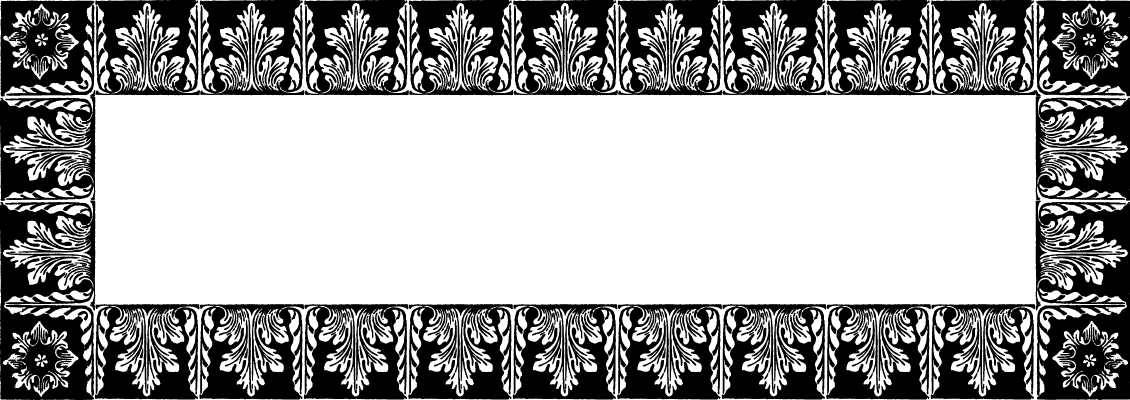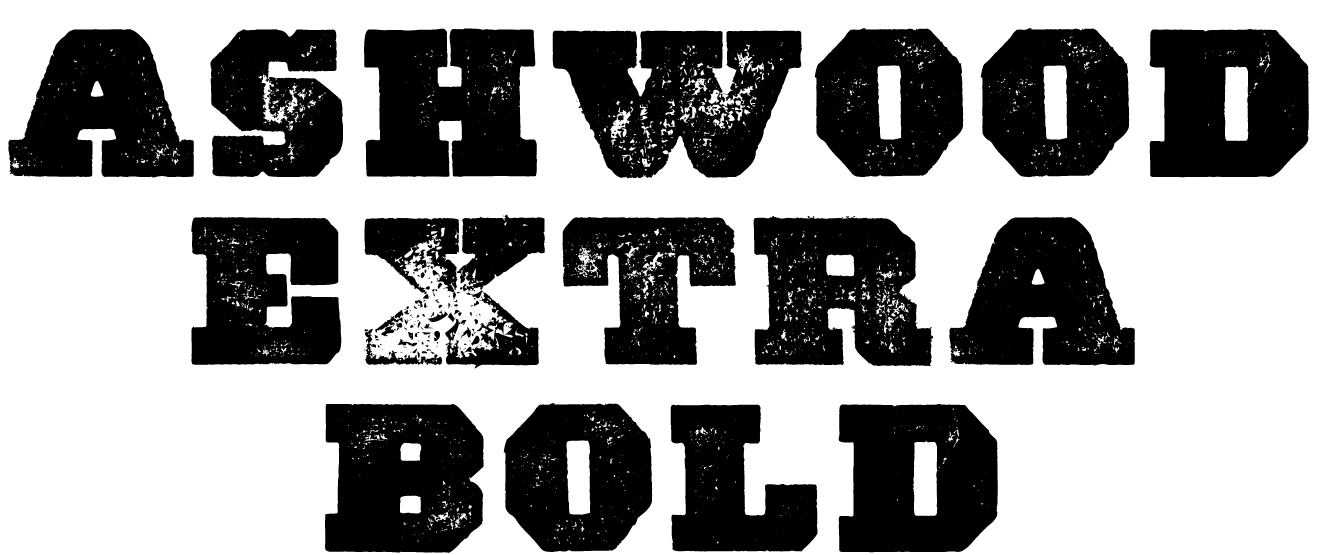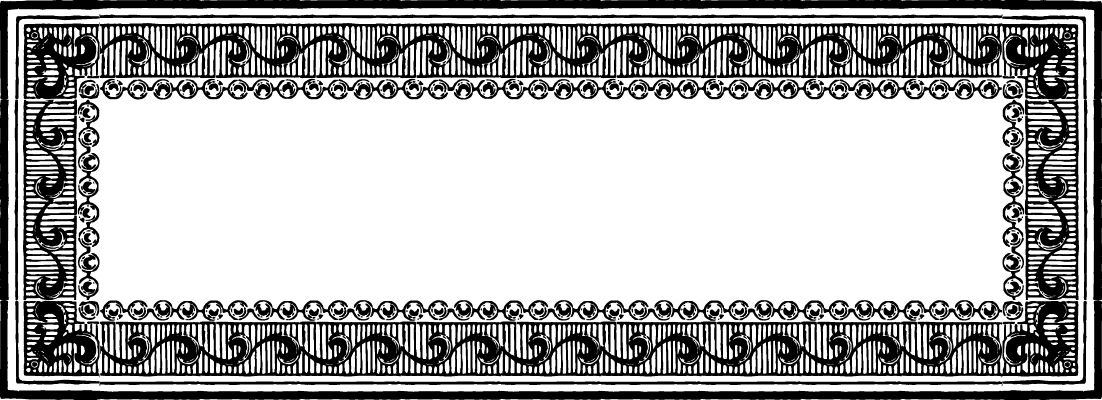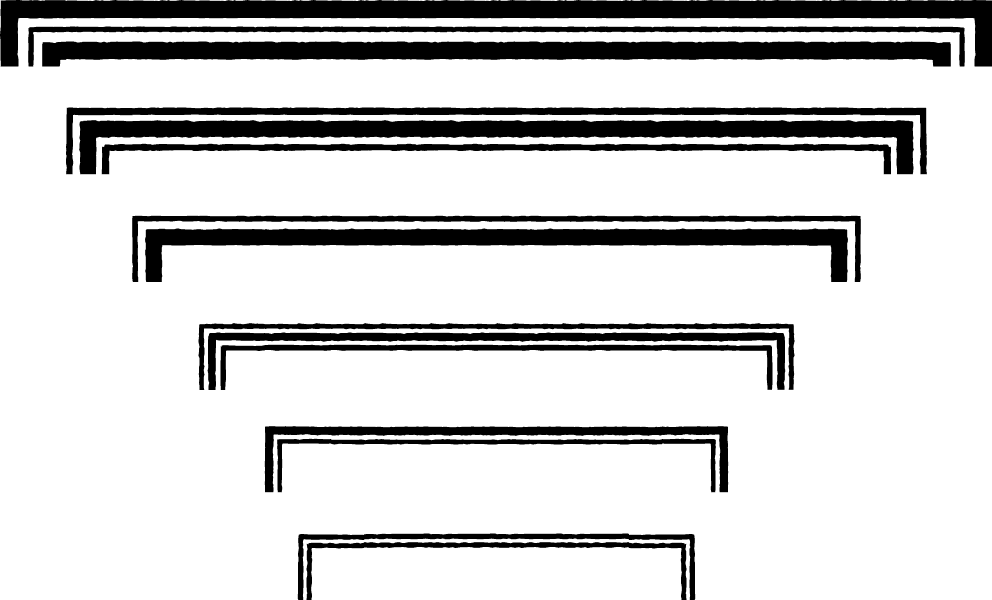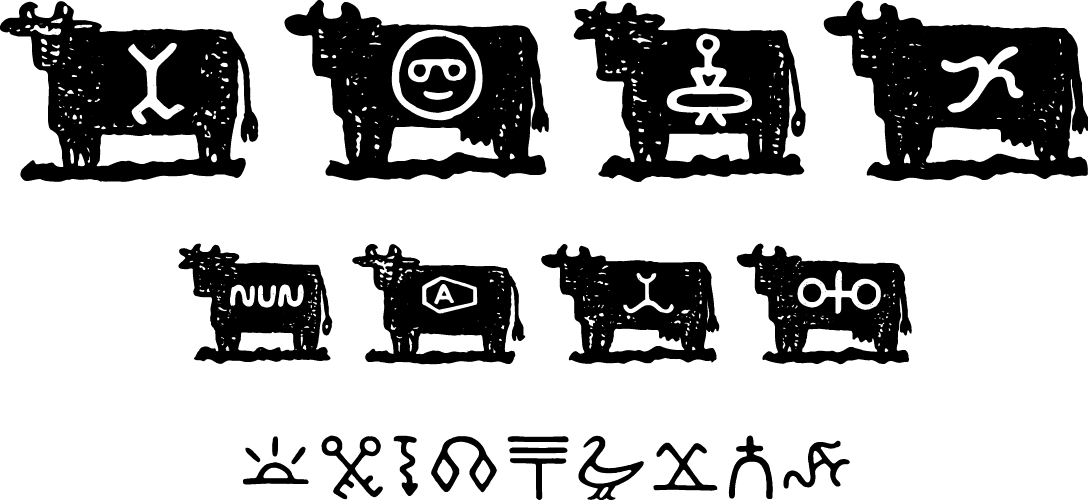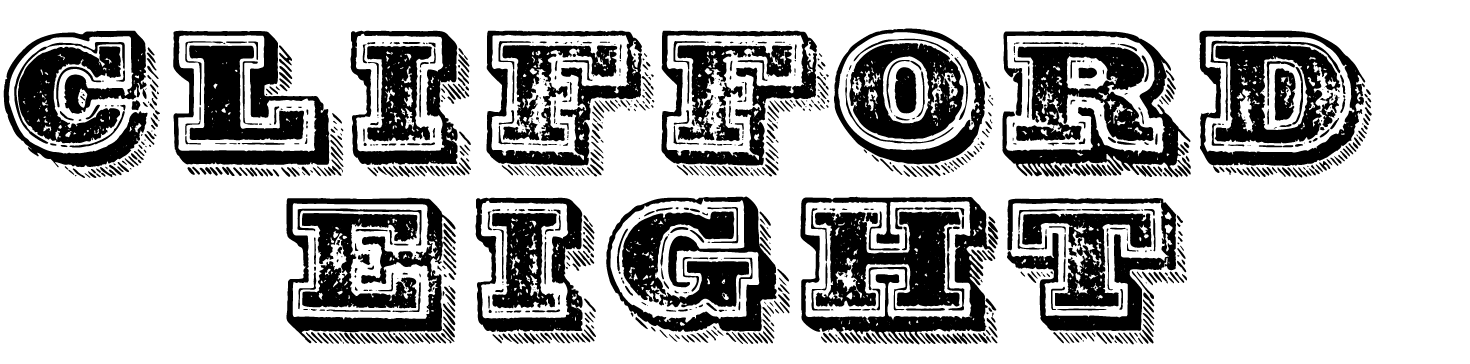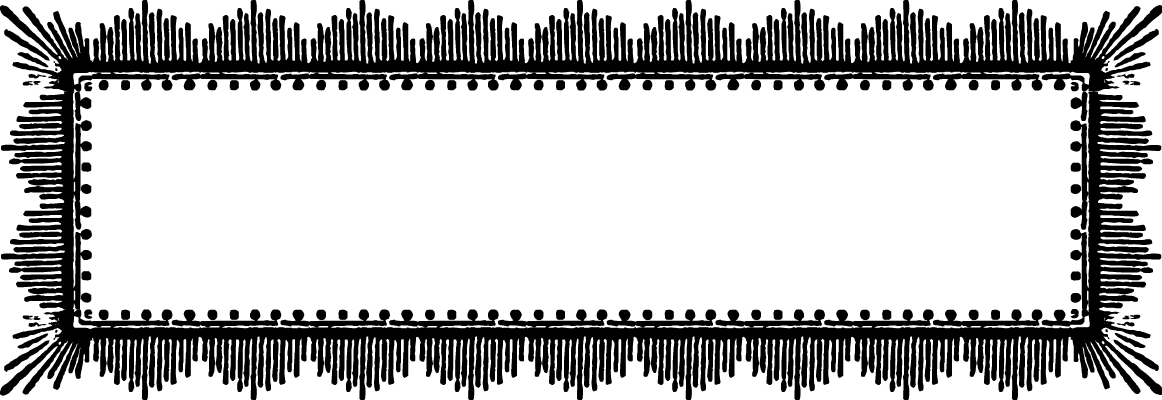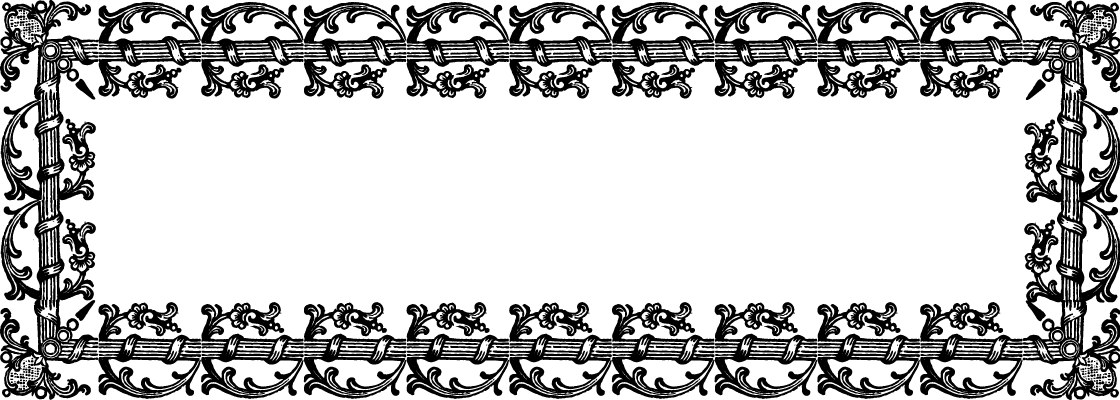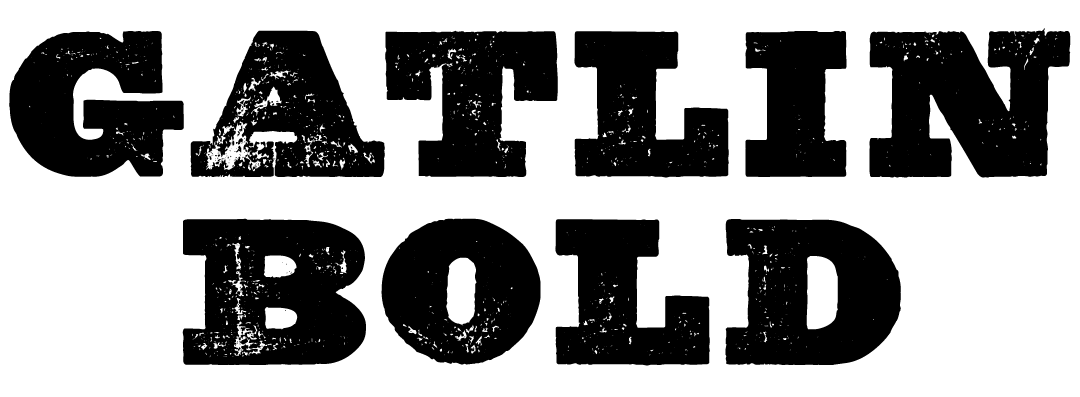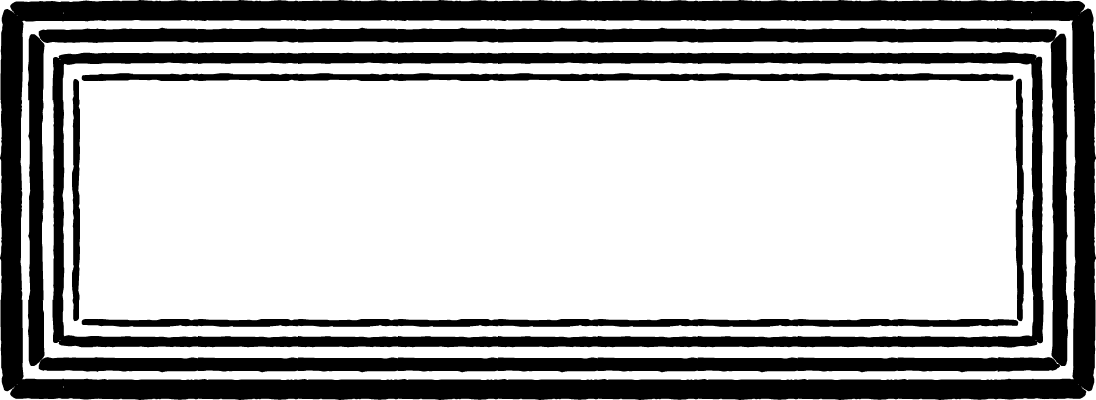
The Wild West Press
The Wild West Press design kit has everything you need to make authentic wanted posters, playbills, gambling posters, product labels and much more: distressed, old-fashioned fonts that are perfect for projects calling for a grungy, dusty, old west look.
The display fonts are mainly slab-serif, "Tuscan" styles, ranging from rustic cowboy fonts to ornate 19th century wood types. They are well suited for signage and headlines.
Not looking for the typical "wanted poster" or circus and carnival advertisement look? Use our old west fonts sparingly, even just single letters, to add extra oomph to your projects.
Our western fonts are taken from original sources and retain all the wear and tear of the originals. Combine them with our western bullets and cattle brand fonts for added impact, then lasso your text with one of the included decorative borders to get a compelling, authentic "wild west" style composition!
The set includes the following wild west fonts:
• 24 Original Display Typefaces
• 10 Original Text Typefaces
• A 19th century handwriting font (Dead Man's Hand WF)
• 9 Border Fonts
• 1 Signature font (Heroes and Villains WF)
• 2 Symbol Fonts (Western Bullets WF and Cattle Brands WF)
• Over 300 clip-art images - Patriotic Symbols, Page Ornaments, Animals, People & Faces, Transportation and Scenery
The condensed version of Ashwood
Ashwood Condensed WF   Punctuation: no  Uppercase: yes  Lowercase: no  Numerals: no
A tremendously black face - great for headlines
Ashwood Extra Bold WF   Punctuation: no  Uppercase: yes  Lowercase: no  Numerals: no
A rough, bold Sans-Serif Display face.
Asphaltum WF   Punctuation: no  Uppercase: yes  Lowercase: no  Numerals: no
A popular, ornate display face
Aubrey Landing WF   Punctuation: yes  Uppercase: yes  Lowercase: no  Numerals: no
A classic among Western Display faces.
Bear Gulch WF   Punctuation: yes  Uppercase: yes  Lowercase: yes  Numerals: yes
The Bullion family is one of the most popular 19th century fonts. You will get a lot of mileage from these types.
Bullion WF   Punctuation: yes  Uppercase: yes  Lowercase: yes  Numerals: yes
The Bullion family is one of the most popular 19th century fonts. You will get a lot of mileage from these types.
Bullion Extra Condensed WF   Punctuation: yes  Uppercase: yes  Lowercase: yes  Numerals: yes
The Bullion family is one of the most popular 19th century fonts. You will get a lot of mileage from these types.
Bullion Italic WF   Punctuation: yes  Uppercase: yes  Lowercase: yes  Numerals: yes
Shaded typefaces were always popular. Chalk Bluff is an example from the latter half of the 19th century. This one is particularly worn.
Chalk Bluff WF   Punctuation: yes  Uppercase: yes  Lowercase: yes  Numerals: yes
What a typeface! This font begs to be set at 3 feet or taller! Unfortunately, we have found no numerals for this superb shaded font.
Clifford Eight WF   Punctuation: yes  Uppercase: yes  Lowercase: yes  Numerals: no
an odd, spiky look sets this Display face apart. Definitely one of the stranger faces in the Tuscan style.
Cut and Shoot WF   Punctuation: no  Uppercase: yes  Lowercase: no  Numerals: yes
A very black typeface for strong displays at large point sizes.
Gatlin Bold WF   Punctuation: yes  Uppercase: yes  Lowercase: no  Numerals: no
Muleshoe is a face that goes well with its name - rough and tumble, worn and spiky. This would be a good font to use for outdoor signs.
Muleshoe WF   Punctuation: yes  Uppercase: yes  Lowercase: yes  Numerals: yes
A popular text face at the time, Ophir is light an airy and well suited for labels and advertisements.
Ophir WF   Punctuation: yes  Uppercase: yes  Lowercase: yes  Numerals: yes
This typeface is tough as nails. Too wide to be allowed in most printing projects, this font makes quite a statement. If you need impact, Rawhide WF can deliver it.
Rawhide WF   Punctuation: yes  Uppercase: yes  Lowercase: yes  Numerals: yes
A fabulous, shaded display face. Ornate, but not too ornate.
Round Mountain WF   Punctuation: yes  Uppercase: yes  Lowercase: no  Numerals: no
This font evokes images of showboats and gambling halls along the Mississipi and Missouri rivers of old. The name, inspired by Mark Twain, evokes the same.
Royal Nonesuch WF   Punctuation: yes  Uppercase: yes  Lowercase: no  Numerals: no
Whenever I look at this font I think of barbed wire across endless plains . . .
Sageland WF   Punctuation: yes  Uppercase: yes  Lowercase: no  Numerals: yes
A classic
Sawtooth WF   Punctuation: yes  Uppercase: yes  Lowercase: yes  Numerals: yes
Another very typical
Shelldrake WF   Punctuation: no  Uppercase: yes  Lowercase: no  Numerals: yes
A very bold, shaded, 3-dimensional face that lends itself to headlines or any other large-format application
Stockton WF   Punctuation: yes  Uppercase: yes  Lowercase: no  Numerals: yes
A very tall and narrow, sans-serif face that foreshadows some of the later gothic developments. Very eye-catching.
Thousandsticks WF   Punctuation: yes  Uppercase: yes  Lowercase: yes  Numerals: yes
A nicely shadowed face, very decorative, though not the most legible.
Thunder Mountain WF   Punctuation: yes  Uppercase: yes  Lowercase: yes  Numerals: yes
A sprawling display face that blurs the line between type and ornament. The legibility is fairly low, but what an impact!
Whitecross WF   Punctuation: yes  Uppercase: yes  Lowercase: no  Numerals: yes
A bold, rounded display face with strange spikes for serifs.
Wildwash WF   Punctuation: yes  Uppercase: yes  Lowercase: no  Numerals: yes
A legible text face in the
Faywood WF   Punctuation: yes  Uppercase: yes  Lowercase: yes  Numerals: yes
A legible text face in the
Faywood Extra Condensed WF   Punctuation: yes  Uppercase: yes  Lowercase: yes  Numerals: yes
A legible text face in the
Faywood Italic WF   Punctuation: yes  Uppercase: yes  Lowercase: yes  Numerals: yes
A text face in the
Jawbones Condensed WF   Punctuation: yes  Uppercase: yes  Lowercase: yes  Numerals: yes
A fairly white, rounded face. Good for announcements of any kind.
Langtry WF   Punctuation: yes  Uppercase: yes  Lowercase: yes  Numerals: yes
A formal face well suited for all text applications. Matchwood WF comes in roman, italic, bold and bold-italic cuts.
Matchwood WF   Punctuation: yes  Uppercase: yes  Lowercase: yes  Numerals: yes
A formal face well suited for all text applications. Matchwood WF comes in roman, italic, bold and bold-italic cuts.
Matchwood Bold WF   Punctuation: yes  Uppercase: yes  Lowercase: yes  Numerals: yes
A formal face well suited for all text applications. Matchwood WF comes in roman, italic, bold and bold-italic cuts.
Matchwood Bold Italic WF   Punctuation: yes  Uppercase: yes  Lowercase: yes  Numerals: yes
A formal face well suited for all text applications. Matchwood WF comes in roman, italic, bold and bold-italic cuts.
Matchwood Italic WF   Punctuation: yes  Uppercase: yes  Lowercase: yes  Numerals: yes
A rough 19th century handwriting, created by noted penman Michael Sull. This truly is the hand of someone who is more comfortable handling a six-shooter than a pen.
Dead Man's Hand WF   Punctuation: yes  Uppercase: yes  Lowercase: yes  Numerals: yes
A Signature font that contains authentic autographs of some of the most famous and infamous characters to haunt the West, such as
Heroes and Villains WF   Punctuation: no  Uppercase: no  Lowercase: no  Numerals: no
Cattle Brands were the heraldry of the plains. This font features some of the famous brands of the 19th century. Use it as bullets or for decorative purposes.
Cattle Brands WF   Punctuation: no  Uppercase: no  Lowercase: no  Numerals: no
This symbol font contains small spot illustrations that are suitable for use as bullets or to enhance your text layout.
Western Bullets WF   Punctuation: no  Uppercase: no  Lowercase: no  Numerals: no
A bold border that really makes a statement. Use at large sizes!
Acanthus Border WF   Punctuation: no  Uppercase: no  Lowercase: no  Numerals: no
A fancy yet unobtrusive border for fine printing.
Baubles Border WF   Punctuation: no  Uppercase: no  Lowercase: no  Numerals: no
This border font contains six straight rule borders of different design. The borders work well in combination with other borders or by themselves.
Brass Rules WF   Punctuation: no  Uppercase: no  Lowercase: no  Numerals: no
An intricate border for book work and fine printing. Works well in combination with Brass Rule borders.
Fringe Border WF   Punctuation: no  Uppercase: no  Lowercase: no  Numerals: no
A very ornate and forceful border.
Garland Border WF   Punctuation: no  Uppercase: no  Lowercase: no  Numerals: no
A rough and powerful border. A special design for
Grid Border WF   Punctuation: no  Uppercase: no  Lowercase: no  Numerals: no
A delicate and playful border suitable for society printing.
Lace Border WF   Punctuation: no  Uppercase: no  Lowercase: no  Numerals: no
Because of the independent shape of its characters, this border is well suited for unorthodox shapes.
Seal Border WF   Punctuation: no  Uppercase: no  Lowercase: no  Numerals: no
Vine Border is a playful but strong border well suited for large point sizes.
Vine Border WF   Punctuation: no  Uppercase: no  Lowercase: no  Numerals: no